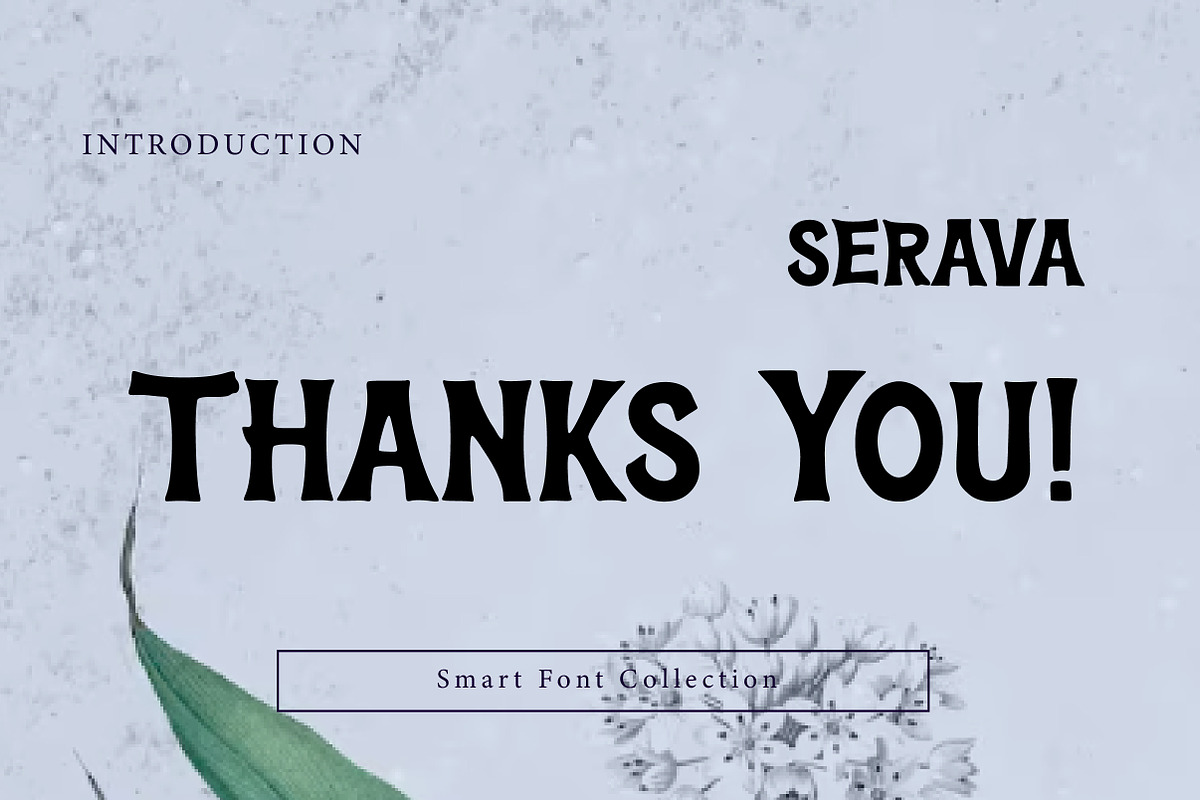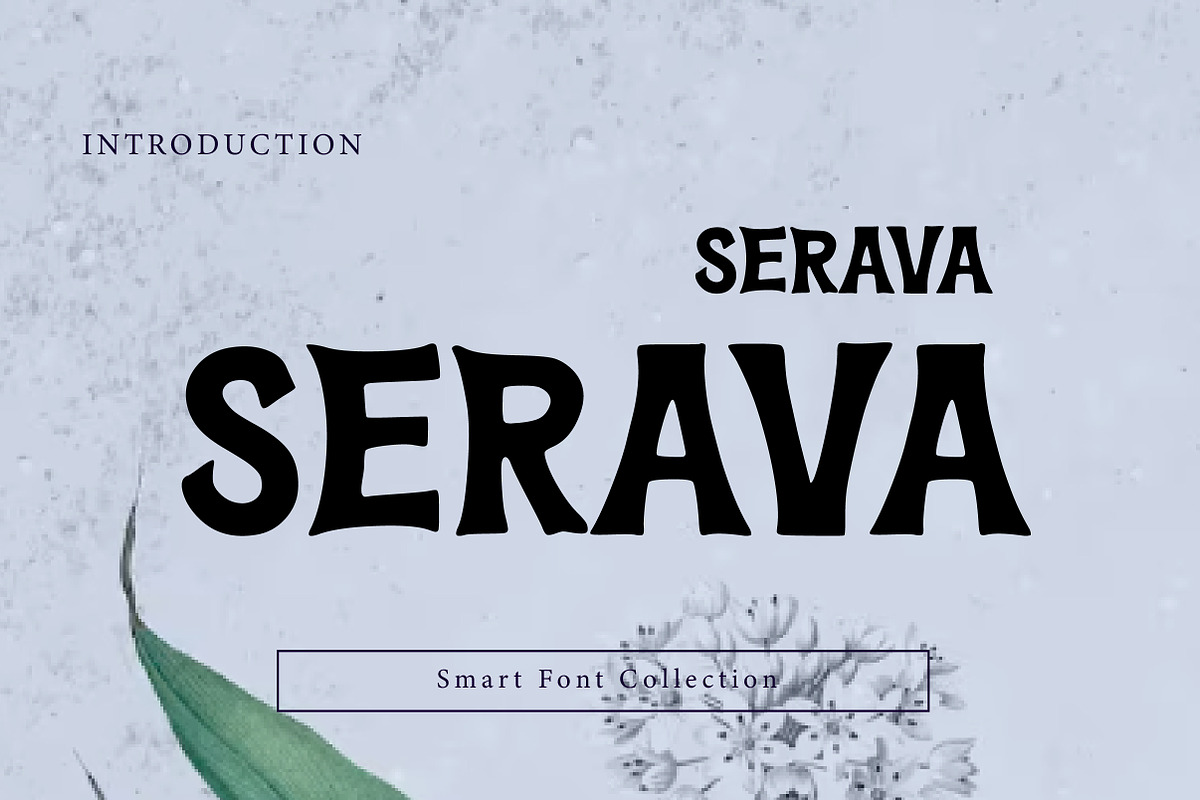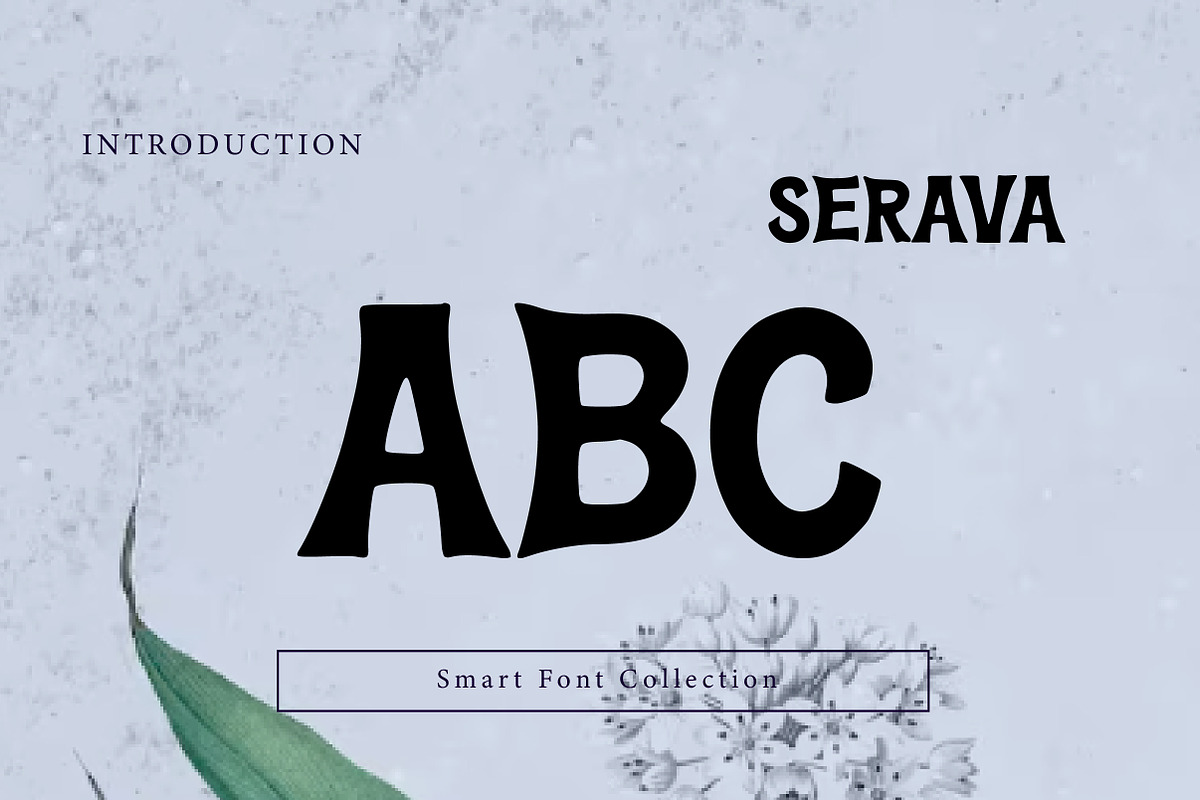
Serava
Serava is a bold, expressive retro display serif font with flared strokes, soft curves, and a confident vintage personality. Its chunky letterforms and playful proportions make it ideal for logos, posters, headlines, branding, packaging, signage, album covers, and retro-inspired designs. Serava delivers a strong visual impact while retaining a warm, handcrafted feel.